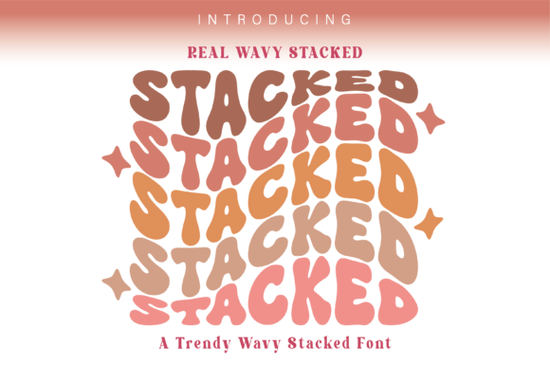
If you've been scrolling through display fonts looking for something that stands out without being hard to work with, the Real Wavy Stacked Font is worth a closer look. It's a groovy typeface with a stacked effect that gives text an instant retro-modern vibe. The design includes 7 special glyphs that help you put together trendy text layouts without needing advanced design skills.
What Is a Stacked Font, and Why Does It Matter?
A stacked font arranges letters in a layered or overlapping way, creating a bold, dimensional look. Instead of text sitting flat on a single baseline, parts of the letters interact with each other stacking, waving, or overlapping. This makes the text feel more like a graphic element than simple writing.
For designers and small business owners, this matters because stacked display fonts grab attention fast. They work well for:
- Logo designs where you want personality without clutter
- T-shirt graphics for print-on-demand shops
- Social media posts that need to stop the scroll
- Greeting cards and invitations with a fun, retro feel
- Poster and flyer layouts that need bold headlines
The wavy style adds movement to the letters, so even a short word can look dynamic and interesting on its own.
How Do the 7 Glyphs Help With Text Design?
One feature that sets Real Wavy Stacked apart is its set of 7 custom glyphs. These are special character variations you can swap in to change how certain letters look or connect.
In practical terms, this means:
- You can mix and match letter styles within the same word
- Short phrases look more varied and less repetitive
- You get more creative control without needing a full illustration program
If you've worked with fonts that offer alternates, you already know how useful this is. The glyph variety turns one font into a small design toolkit.
What Can You Create With a Groovy Wavy Font?
This typeface leans into a retro groovy aesthetic think 70s-inspired lettering with a modern twist. That makes it a natural fit for projects that want to feel fun, approachable, and a little nostalgic.
Here are some real-world uses that work especially well:
Print-on-Demand Products
Stacked wavy text looks great on mugs, tote bags, stickers, and apparel. Since the font does a lot of the visual heavy lifting, you can keep your layouts simple and still have a product that looks polished. Pair it with a solid background color and let the typography be the focus.
Branding for Small Businesses
Businesses that want a friendly, approachable tone bakeries, coffee shops, surf brands, lifestyle blogs can use this font for headers, menu titles, or packaging. The wavy effect adds character without sacrificing readability at the right size.
Digital Designs and Social Media
Instagram stories, YouTube thumbnails, and Pinterest pins all benefit from bold headline fonts. A stacked display typeface like this one makes short text blocks eye-catching even on small screens.
Does It Work for Professional Design Projects?
Yes, as long as you use it in the right context. Display fonts like Real Wavy Stacked aren't meant for body text or long paragraphs they're built for headlines, titles, and short phrases. Used correctly, they look professional and intentional.
A few things to keep in mind:
- Size matters. This font shows its detail best at larger sizes. Don't shrink it too small or the wavy stacked effect may get lost.
- Contrast helps. Use it against a clean background so the letter shapes stay readable.
- Limit your font combinations. Pair it with a simple sans-serif for any supporting text. Too many decorative fonts in one layout creates visual noise.
If you're working on a project that calls for something softer and more romantic, a script-style display font might complement this wavy typeface well in a font pairing.
Quick Checklist Before You Use This Font
- Test at your target size preview the font at the actual size it will appear in your design
- Try all 7 glyphs swap alternates in and out to find the combination that works best
- Pair with a simple secondary font let the wavy stacked style be the visual star
- Export and preview on real products mockups help, but check how it looks on the final output
The Real Wavy Stacked Font is a solid choice if you want a typeface that brings energy and personality to short text. Whether you're designing for clients, your own shop, or just for fun, it gives you enough flexibility with those 7 glyphs to keep your layouts fresh without overcomplicating things.